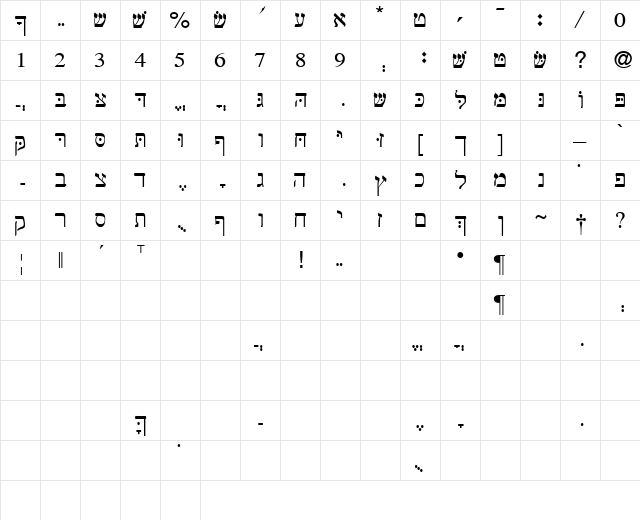
Road Runner 1 Medium
Design Context for Road Runner 1 Typeface
Road Runner 1 is a composed and adaptable typeface that performs quietly and consistently across a wide range of design contexts.